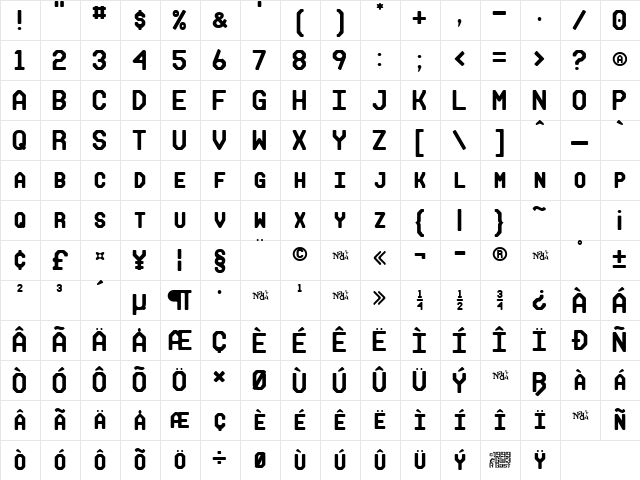
Makisupa Regular Free Font
Makisupa Regular
Design Context for Makisupa
Makisupa is a composed and adaptable typeface that performs quietly and consistently across a wide range of design contexts.